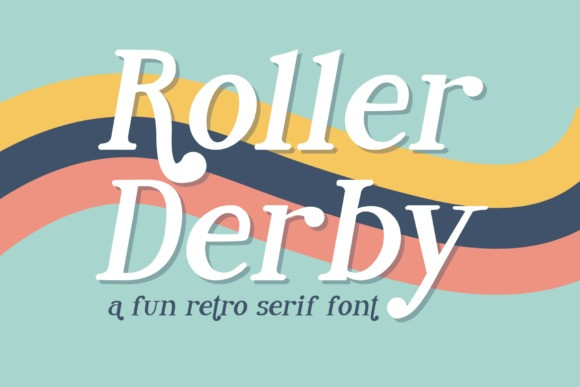
Roller Derby Font
Designer: designingdigitals
Roller Derby Font is a fun, retro serif font. It is perfect for logos, stickers, social media, and any craft project that needs a tidy and classy retro look.